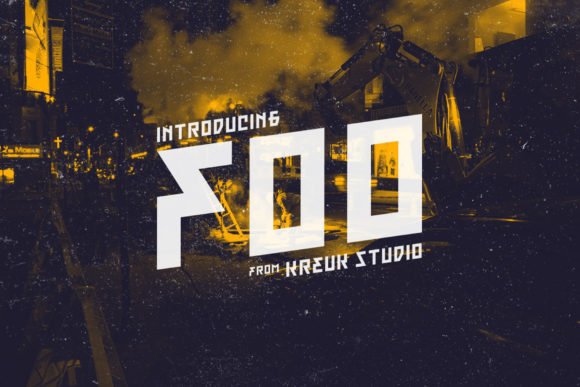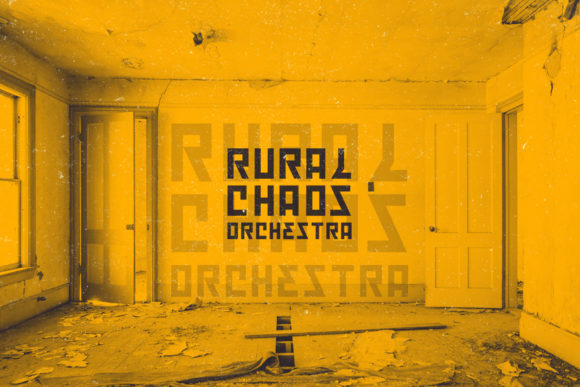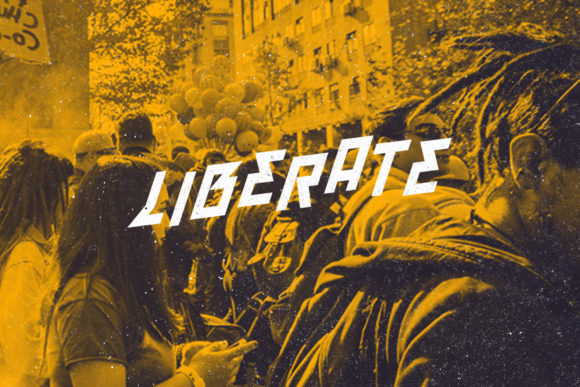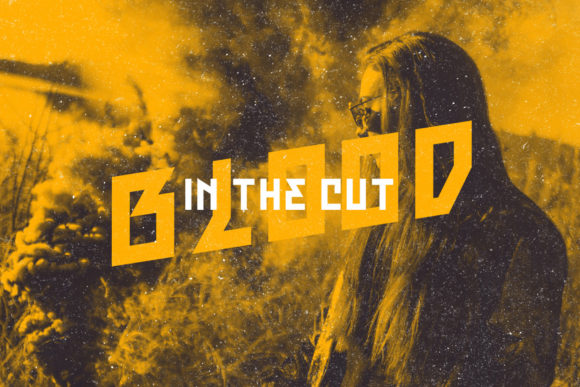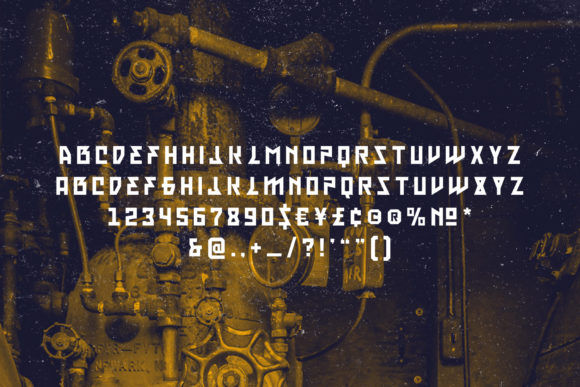
Unleashing Your Inner Creativity with Foo Font
Have you ever stared at a blank canvas, brimming with ideas but struggling to bring them to life? That’s where the magic happens – when creativity meets the perfect tool. For designers, finding the right font can be the missing piece that elevates a project from good to great.
Enter Foo Font, a bold and imposing display font that celebrates abstract shapes in all their eclectic brilliance. This font is designed to add a touch of sophistication and uniqueness to your creative projects, making them truly stand out from the crowd. With Foo Font, you can infuse your designs with a sense of drama and flair, captivating your audience and leaving a lasting impression.
Whether you’re a seasoned designer or just starting out, Foo Font is an invaluable addition to your creative toolkit. Its versatility and bold character make it perfect for a wide range of applications, from branding and advertising to digital art and graphics. Get ready to unleash your inner creativity with Foo Font and take your designs to the next level!
Key Features of Foo Font
- Character Set: The font includes over 1,000 glyphs, covering multiple languages, including Latin, Cyrillic, and Greek alphabets, as well as a range of symbols and punctuation marks.
- Unique Characteristics: Foo Font features a distinctive, modern design with a focus on legibility and readability, making it an excellent choice for body text and headings.
Foo Font Review
I’ve had the chance to work with Foo Font for a project, and I’m sharing my honest thoughts on this font.
- Unique Character Set: Foo Font offers an extensive set of characters, including ligatures, fractions, and special symbols.
- Smooth Typing Experience: The font renders well on various devices and screen resolutions.
- Clean and Minimal Design: The font’s design is modern and clean, making it suitable for various design projects.
- Limited Font Weight Options: Foo Font currently only offers two font weights, which may not be sufficient for some design projects.
Foo Font has a lot to offer, but it falls short in a few areas. While it’s great for projects that require a unique character set, its limitations may not make it suitable for more complex design projects. However, I appreciate the font’s clean design and smooth typing experience. With some updates to address the limitations, Foo Font could become a more versatile and widely used font.
To get the most out of Foo Font, use it for titles and headings in your designs. It’s also great for creating a bold and eye-catching effect in social media graphics and posters. Avoid using it for large blocks of text, as it can be difficult to read.
Best Practices
Remember to use Foo Font in moderation, as it can be overwhelming if used too much. Pair it with a clean and simple design to let the font take center stage.